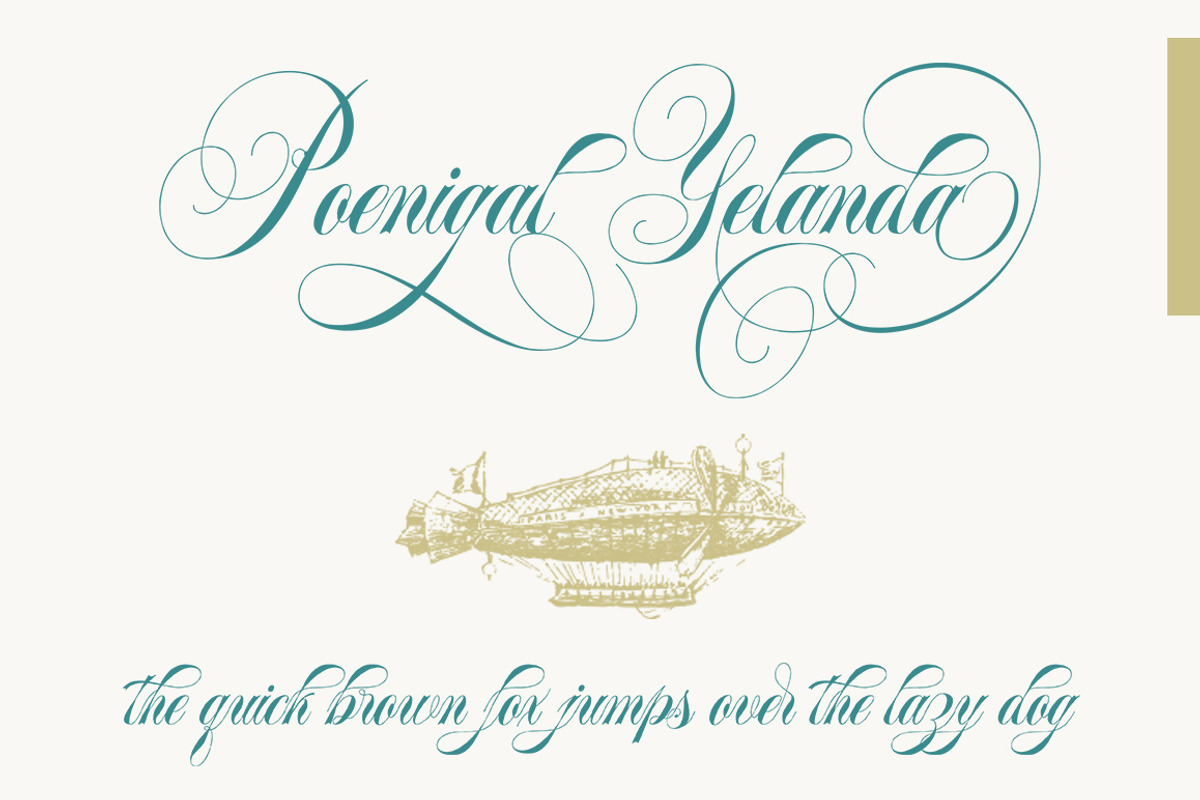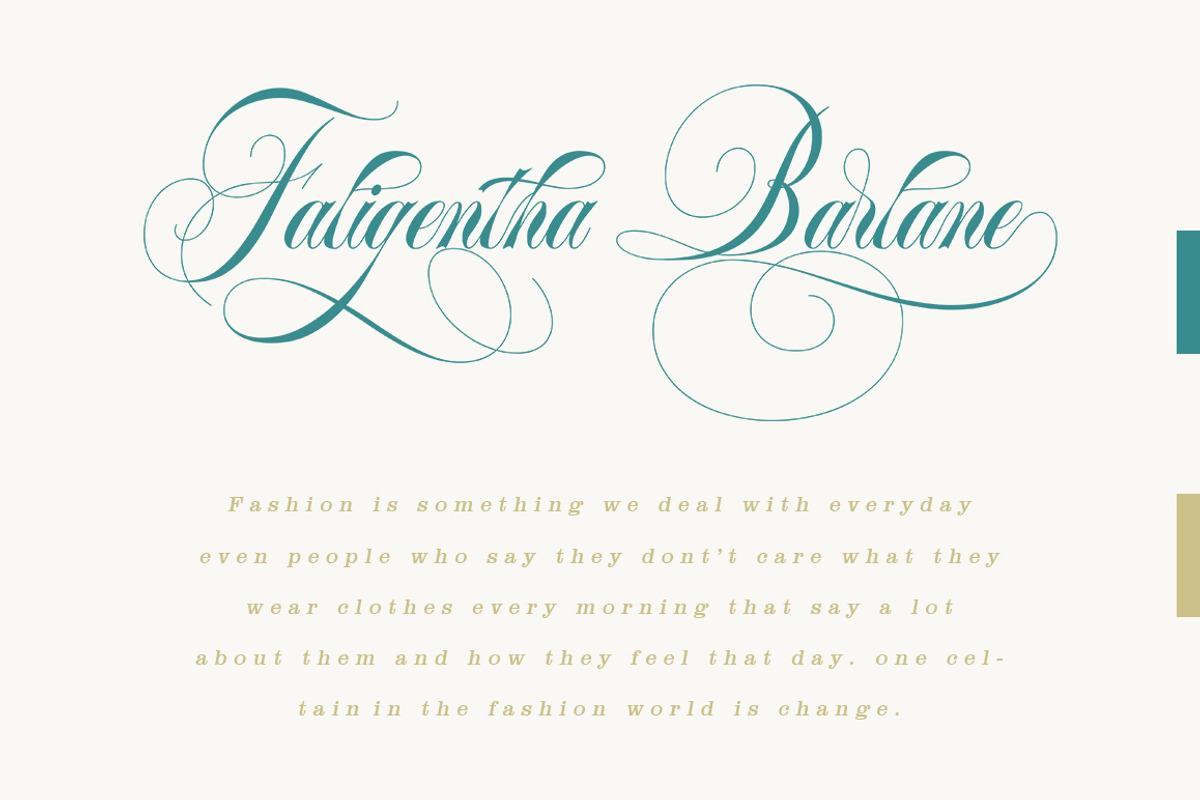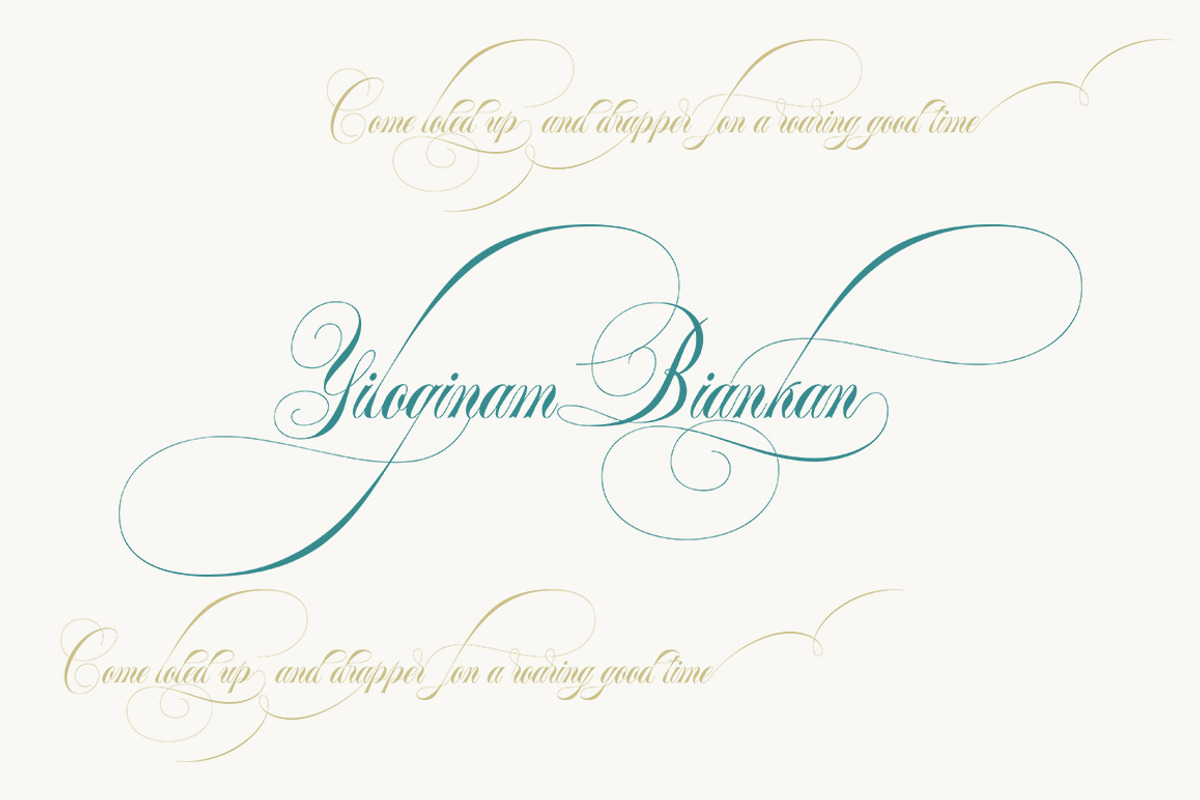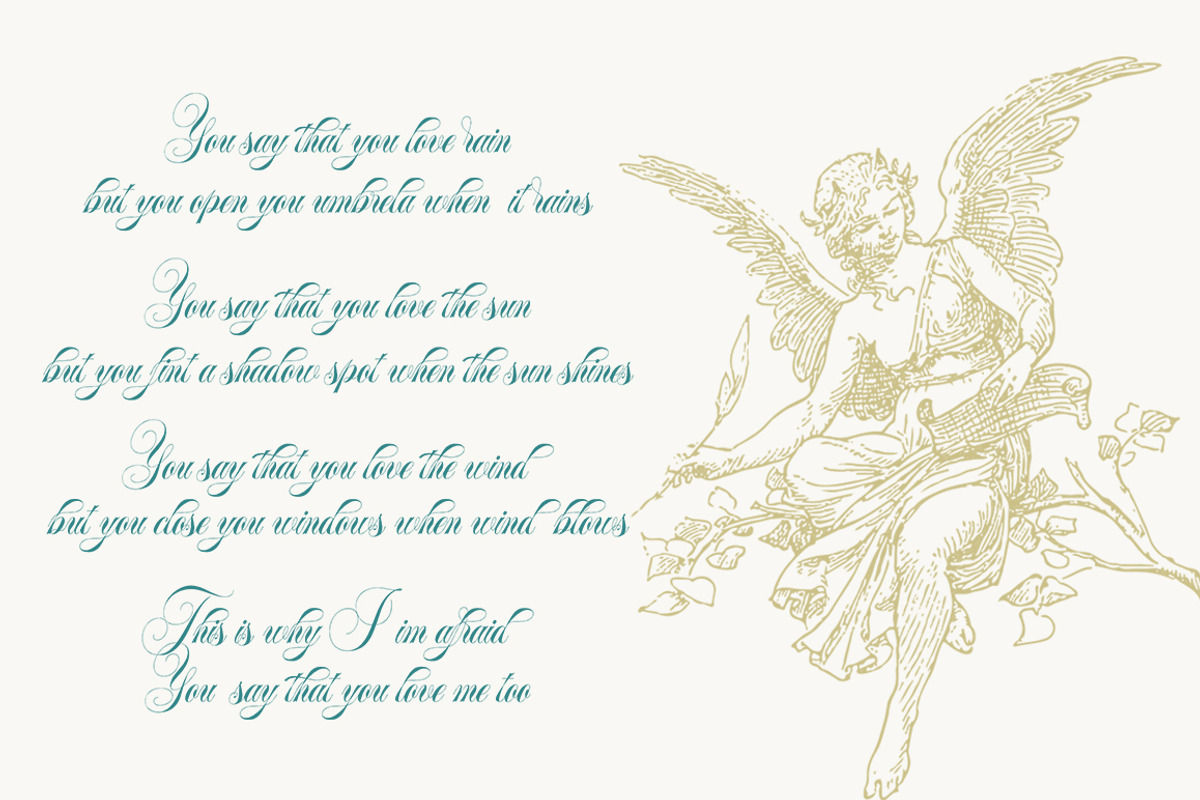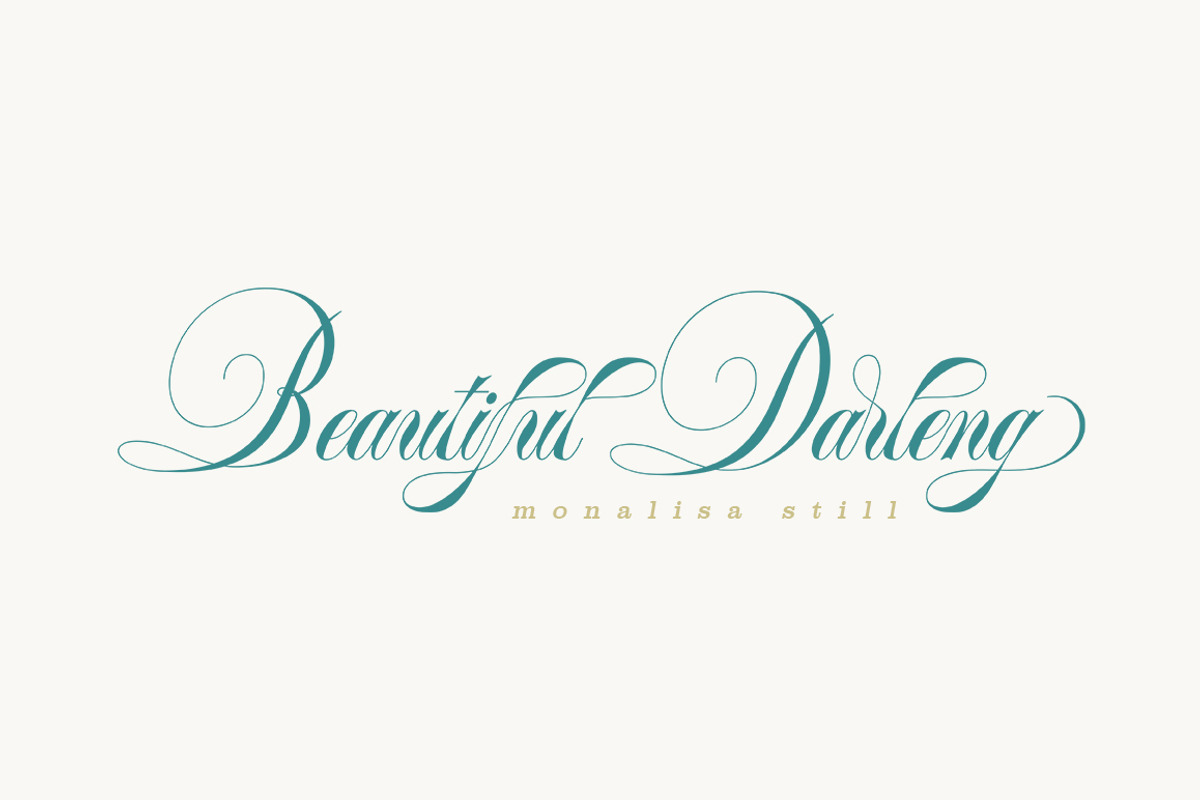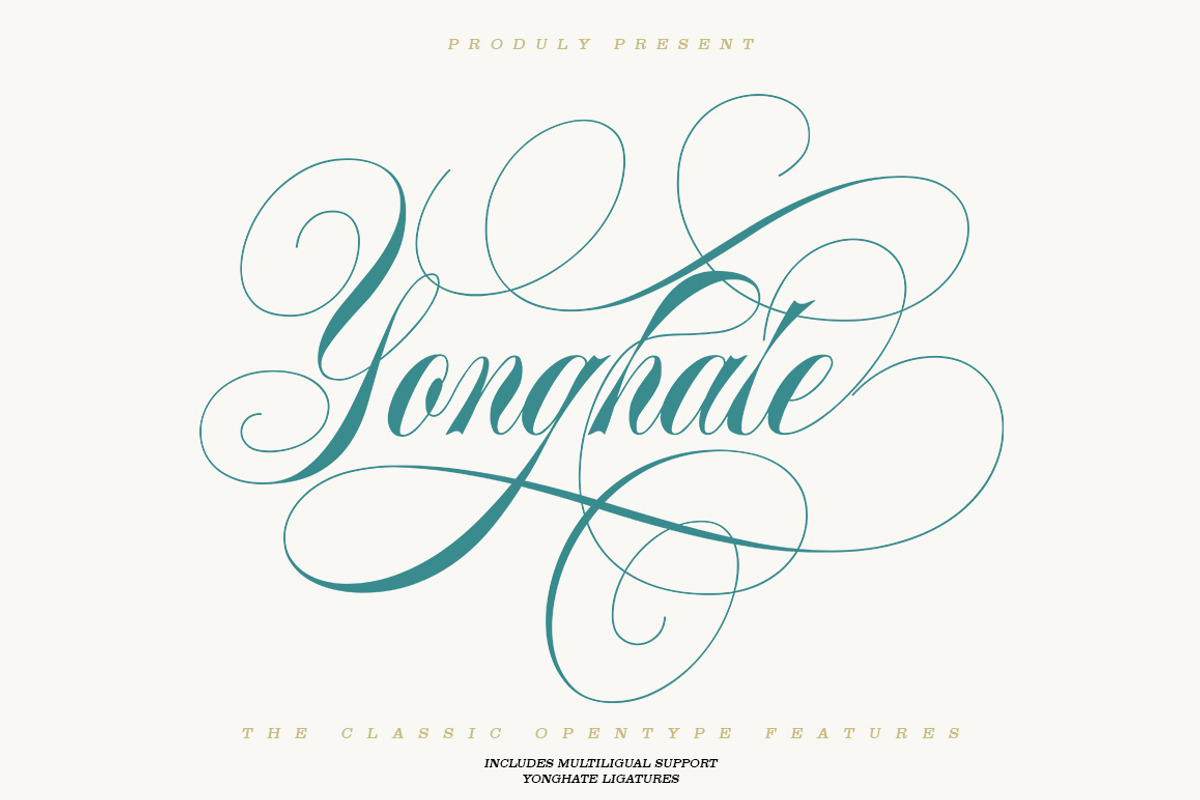
Yonghate
Yonghate is a classy, elegance and clean calligraphy font.
Yonghate is suitable for all your design project needs such as: logo design, branding, covers, posters, magazines, wedding invitations, greeting cards, quotes and more.
Titling, swash, Stylistic Alternate, Stylistic Alternate Set 01,02,03. -Multilingual support - spread your message globally AÀÁÂÃÄÅCÇDÐEÈÉÌÍÎÏIÌÍÎÏNÑOØÒÓÔÕÖUÙÜÚÛWYÝŸÆßÞþ Encoded PUA Characters.